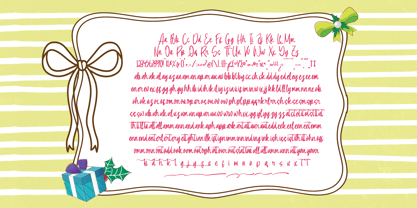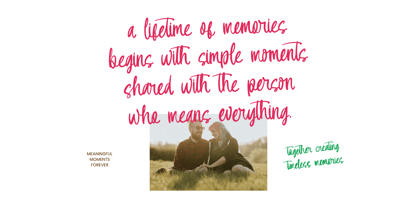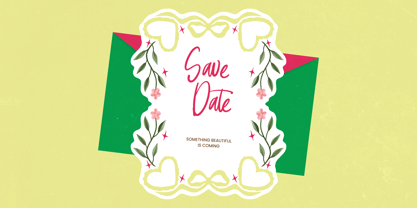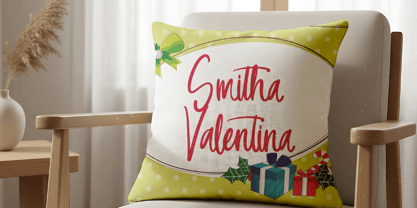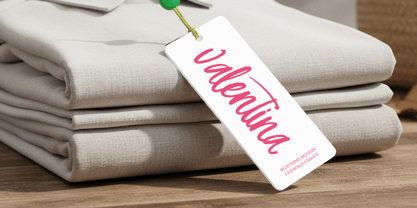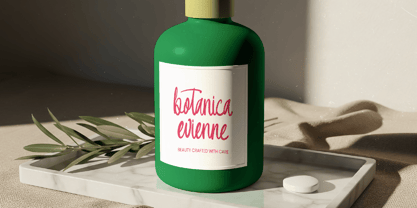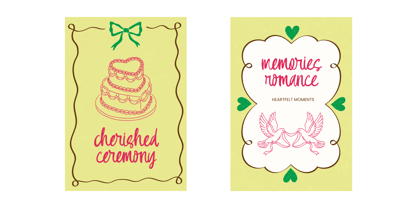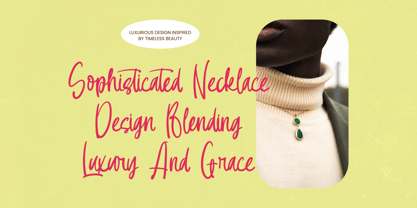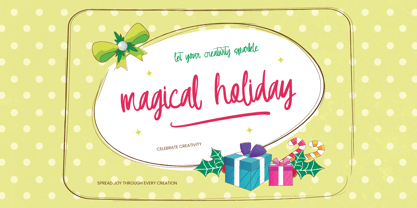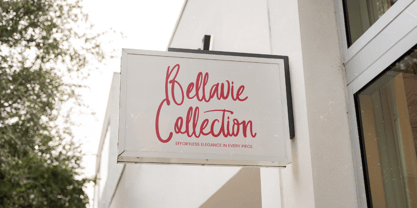
Magical Holiday
Die Schriftfamilie Magical Holiday wurde von Heru Utama Putra entworfen und von Letterena Studios veröffentlicht. Magical Holiday enthält 2 Stile und Familienpaketoptionen. Mehr über diese Familie
Magical Holiday - Aesthetic Handwritten
Elevate your creative vision with a typeface that captures the essence of refined playfulness and organic charm. Magical Holiday - Aesthetic Handwritten offers a fluid script aesthetic that bridges the gap between casual warmth and professional elegance. Its natural rhythmic flow ensures that every word feels personalized and intentional, providing your designs with a distinctive visual personality that stands out in a crowded digital landscape.
Break geographical barriers and reach a wider audience with ease using a tool designed for the modern world. With its extensive multilingual support, Magical Holiday - Aesthetic Handwritten adapts seamlessly across global markets, making it incredibly versatile for international projects. This global accessibility ensures that your brand message remains clear and stylish, maintaining professional consistency regardless of the language or region you are targeting.